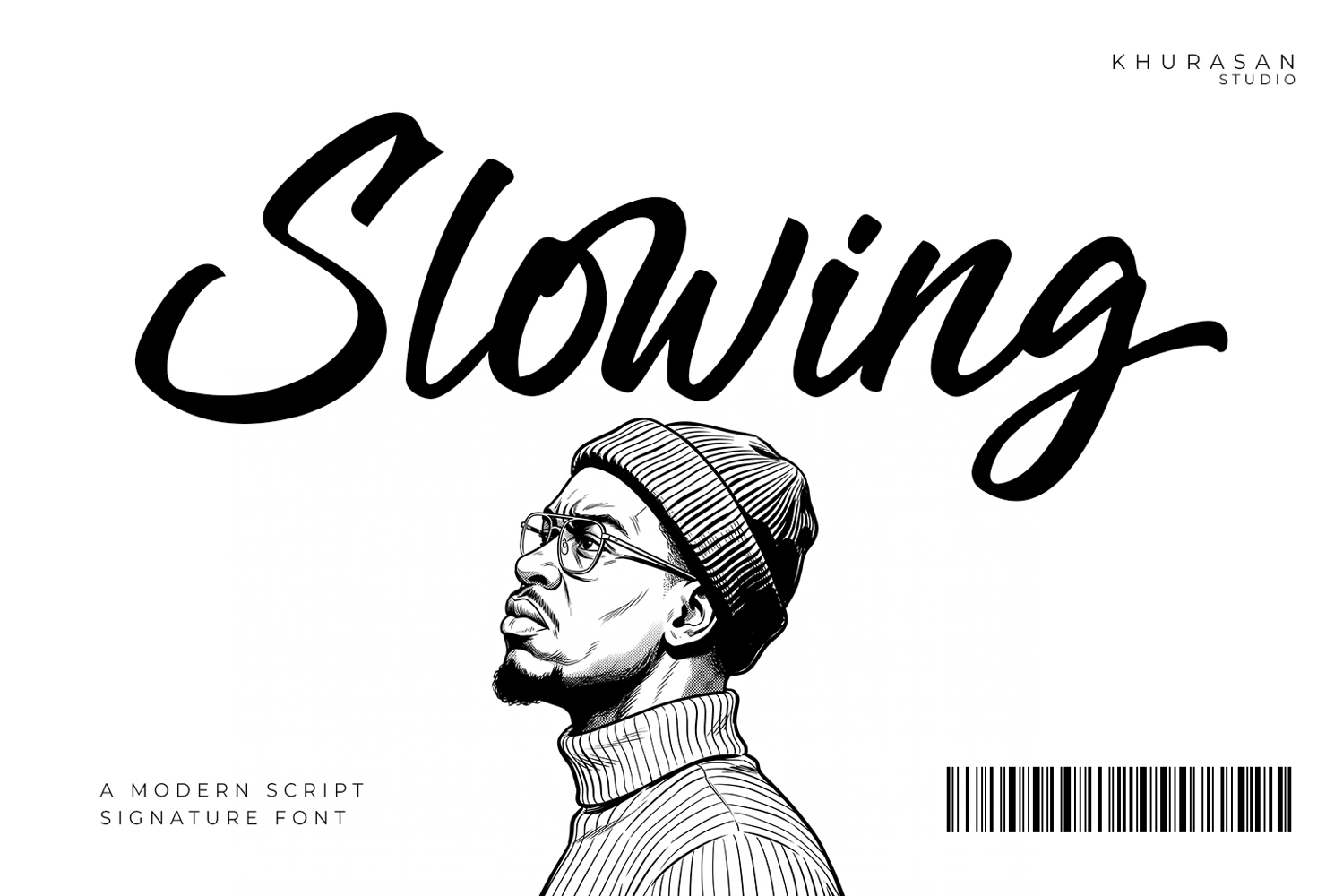
Slowing is a script signature font, designed to capture the beauty of real hand-lettering. Every stroke feels alive — smooth, expressive, and full of personality. It delivers an authentic handwritten charm that makes your designs feel warm, stylish, and premium.